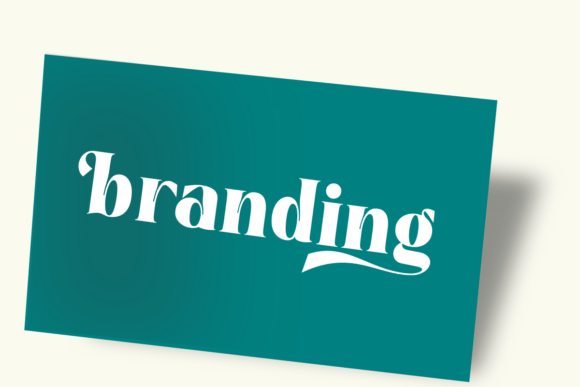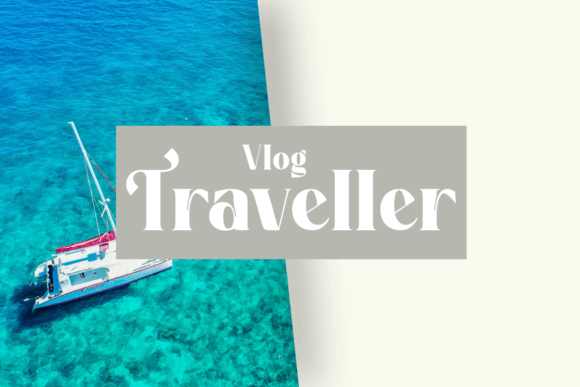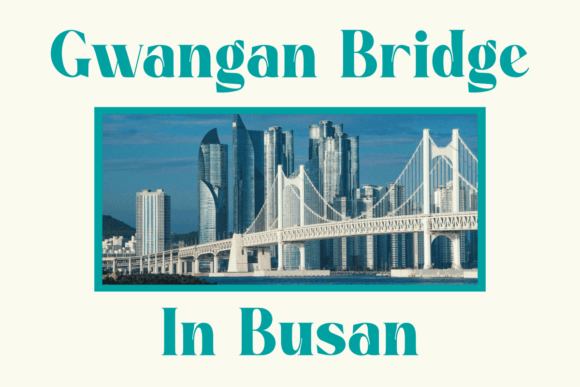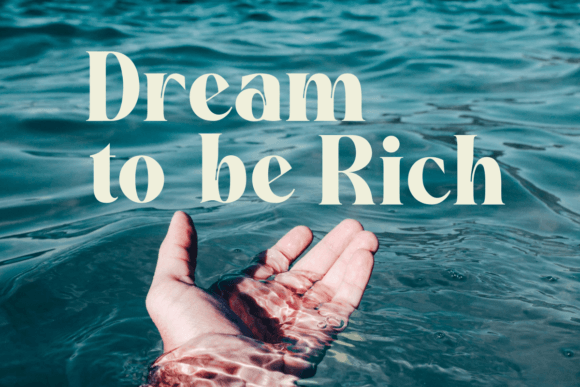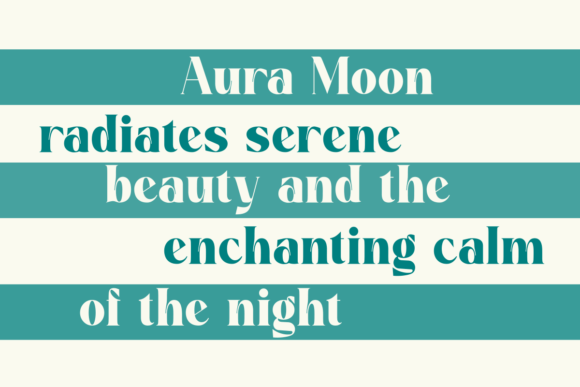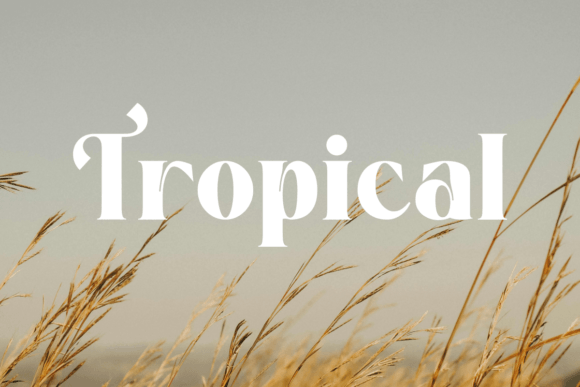
Aura Moon Font: Elevate Your Designs with Elegance and Sophistication
In the world of design, typography plays a crucial role in conveying the message and aesthetic of a project. For those seeking to add a touch of luxury and sophistication to their work, the Aura Moon font is an exceptional choice. This elegant serif display font is meticulously crafted to combine classic beauty with modern style, making it perfect for a variety of design applications.
The Essence of Aura Moon Font
Aura Moon is more than just a font; it’s a design statement. Its serif elegance exudes a sense of refinement and luxury, reminiscent of high-end brands and sophisticated publications. However, what sets Aura Moon apart is its ability to seamlessly blend traditional elements with a contemporary twist. This fusion results in a font that feels both timeless and refreshingly modern.
Key Features of Aura Moon Font
- Elegant Serif Design: The font features beautifully designed serifs that add an air of elegance and sophistication to any text.
- High Precision Craftsmanship: Each character in Aura Moon is crafted with high precision, ensuring that the letters are sharp and highly readable.
- Versatility: Aura Moon is versatile and can be used for a range of design projects, including headlines, logos, invitations, and more.
- Classic yet Modern: The font strikes the perfect balance between classic beauty and modern style, making it suitable for designers looking for a sophisticated yet contemporary look.
Applications of Aura Moon Font
The versatility of Aura Moon makes it an excellent choice for various design projects. Here are some of the ideal applications for this elegant font:
- Headlines and Titles: Aura Moon’s elegant and bold presence makes it perfect for headlines and titles, adding a touch of luxury to any publication or digital content.
- Logo Design: For brands aiming to convey sophistication and elegance, Aura Moon can be a valuable asset in creating a memorable logo.
- Invitations and Event Branding: Whether it’s a wedding invitation, a corporate event, or a product launch, Aura Moon can elevate the visual appeal of your event branding.
- Packaging Design: For luxury products, packaging is crucial. Aura Moon can help in creating elegant and sophisticated packaging designs that stand out.
Why Choose Aura Moon Font?
In a market flooded with numerous fonts, Aura Moon stands out for several reasons:
- Unique Aesthetic: Its unique blend of classic and modern elements provides a distinctive look that can set your designs apart.
- Readability: Despite its elegant and sometimes intricate design, Aura Moon maintains high readability, making it practical for use in various contexts.
- Professionalism: Using Aura Moon in your designs instantly elevates their professional appeal, making them suitable for high-end clients or projects.
How to Use Aura Moon Font Effectively
To maximize the potential of Aura Moon, consider the following tips:
- Pair with Simpler Fonts: For body text, pair Aura Moon with simpler, sans-serif fonts to create contrast and enhance readability.
- Experiment with Sizes: Don’t be afraid to experiment with different sizes to emphasize certain parts of your text and create visual hierarchy.
- Play with Colors: While Aura Moon looks stunning in black or dark colors, experimenting with different colors can help achieve the desired effect or match your brand’s palette.
| Font Name | Aura Moon Font |
| Author | zafira.type |
Aura Moon font is a powerful tool for designers looking to infuse their projects with elegance, sophistication, and a touch of luxury. Its unique blend of classic serifs and modern style, combined with its high readability and versatility, makes it an excellent choice for a wide range of design applications. Whether you’re working on a brand logo, an event invitation, or a high-end product packaging, Aura Moon can help elevate your design to new heights of visual appeal and professionalism.
Embrace Aura Moon in your design projects and discover how this elegant serif display font can transform your work into stunning visual experiences.